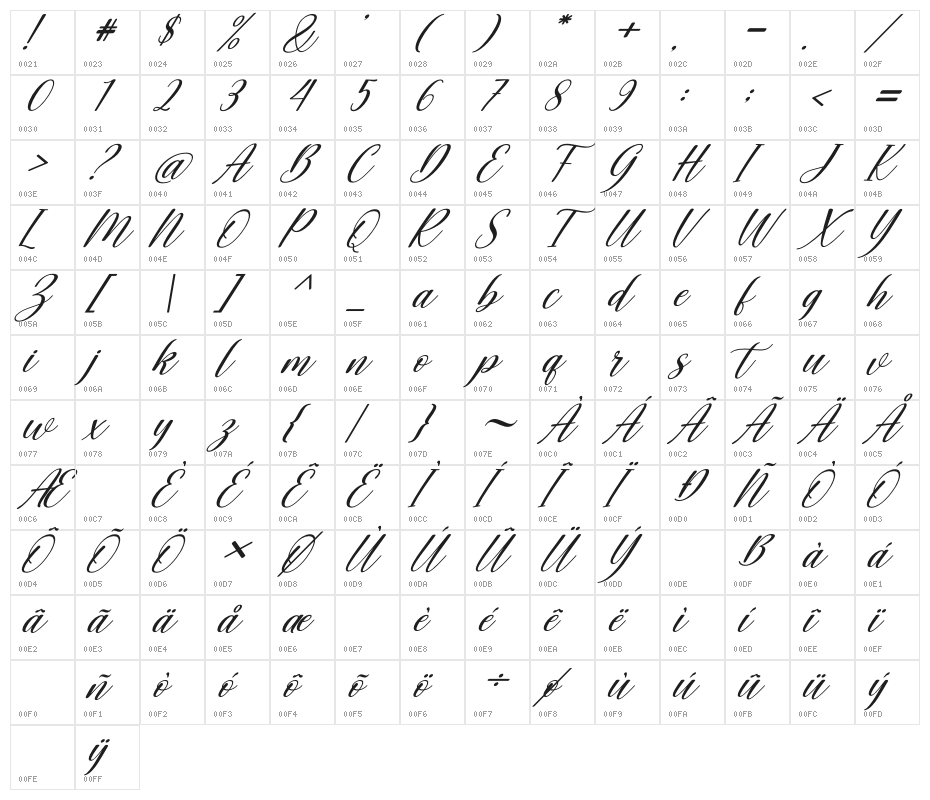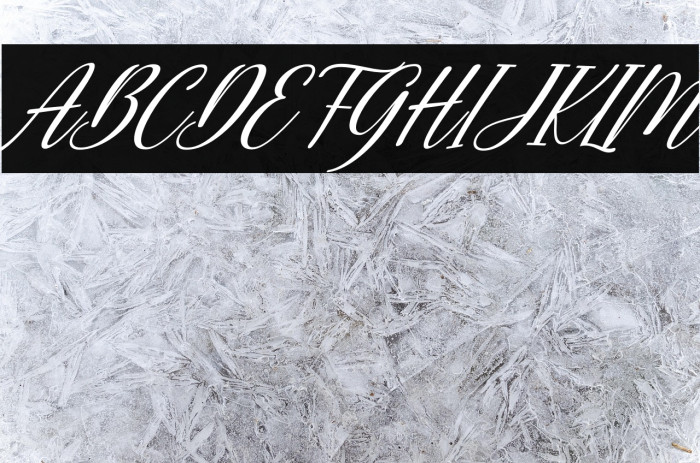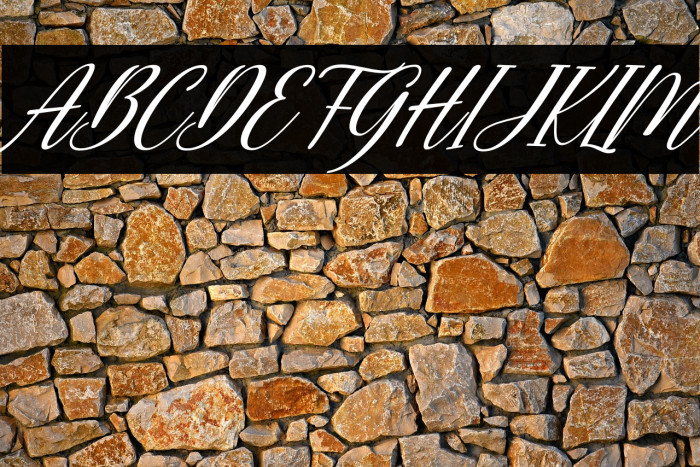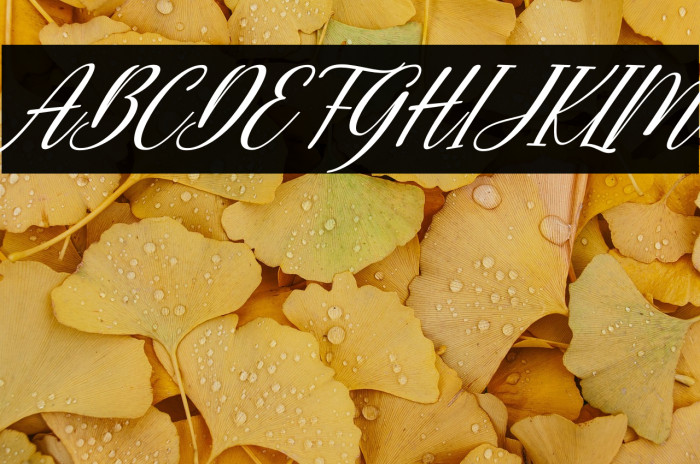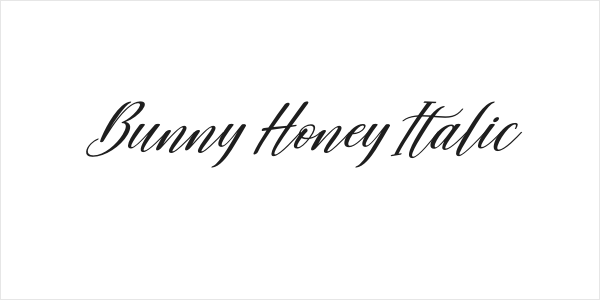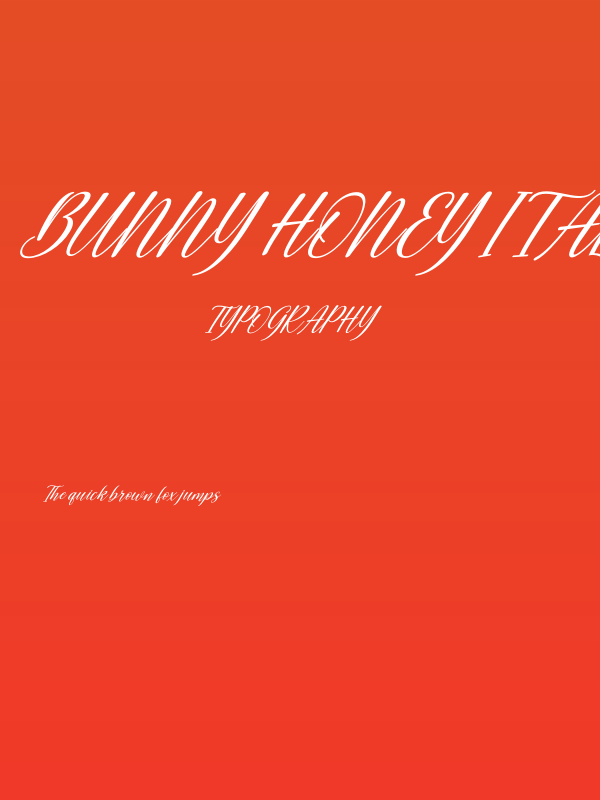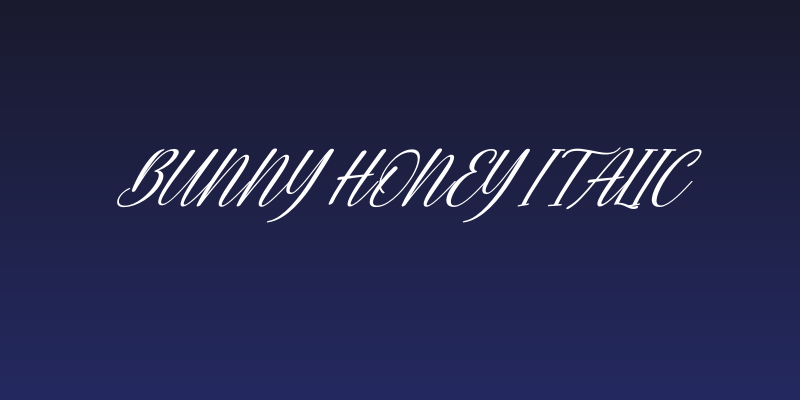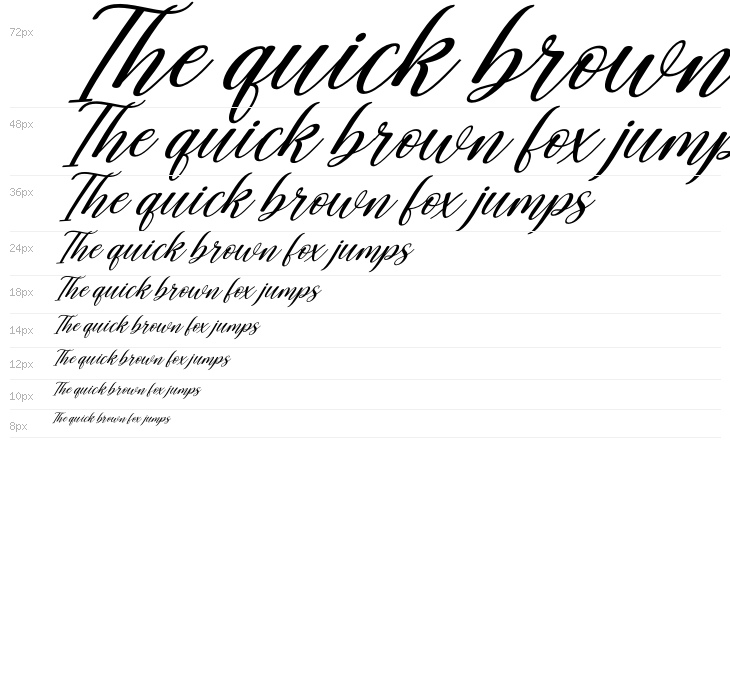
Bunny Honey Italic Font
Bunny Honey Italic Description
This font exudes elegance and fluidity, characterized by its cursive, handwritten style. The letters are gracefully connected, creating a seamless flow that mimics natural handwriting. Each character is crafted with a slight slant, enhancing its italic nature. The strokes vary in thickness, providing a medium contrast that adds depth and sophistication. The uppercase letters are bold and prominent, while the lowercase letters maintain a consistent rhythm, making it ideal for conveying a sense of personal touch and creativity. The numerals and special characters are designed to complement the overall aesthetic, ensuring a cohesive look across all text elements.
| Proposed Projects | Ideal for wedding invitations, greeting cards, personal branding, and artistic projects. |